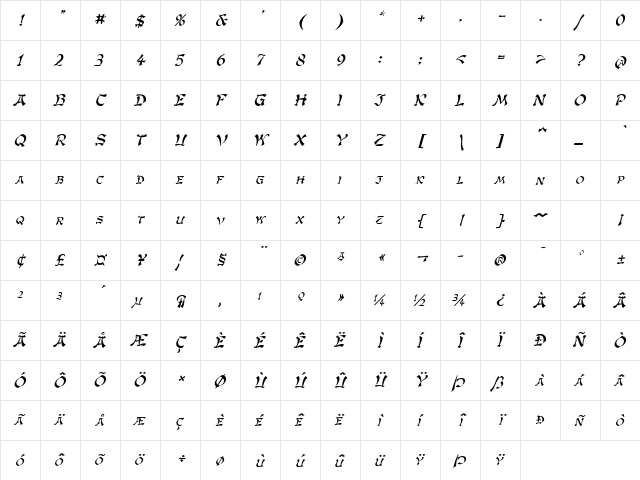
GengisKahn Italic Font Preview
GengisKahn Italic
Design Context for GengisKahn Typeface
GengisKahn is a composed and adaptable typeface that performs quietly and consistently across a wide range of design contexts. The dynamic lean of this cut emphasises speed and emphasis in any layout.